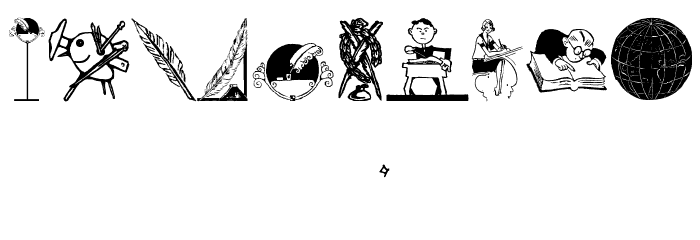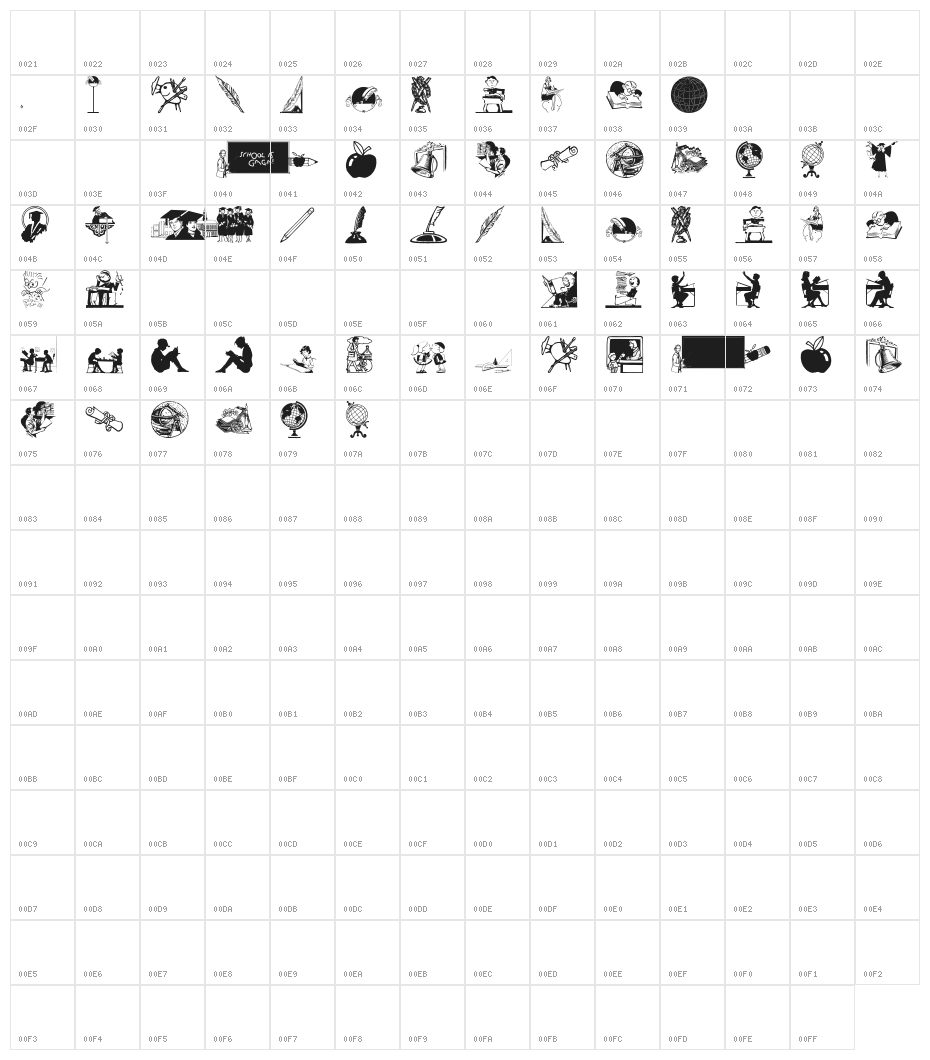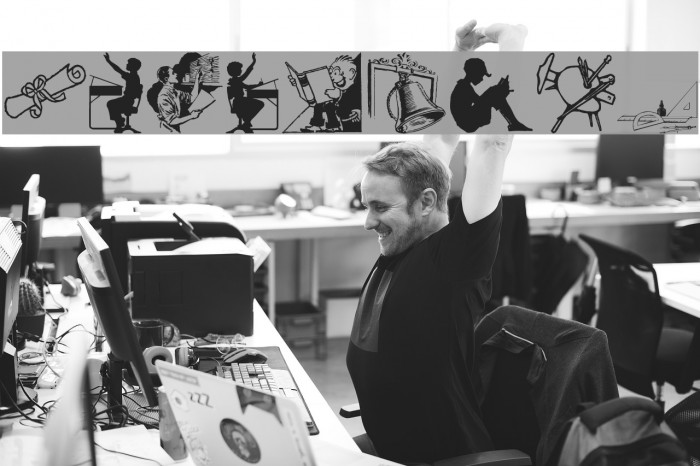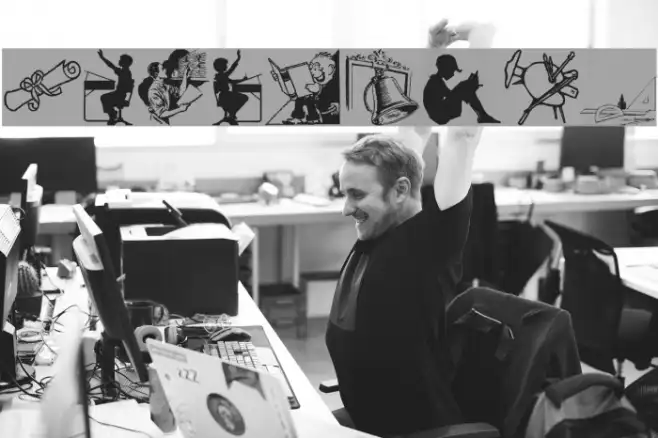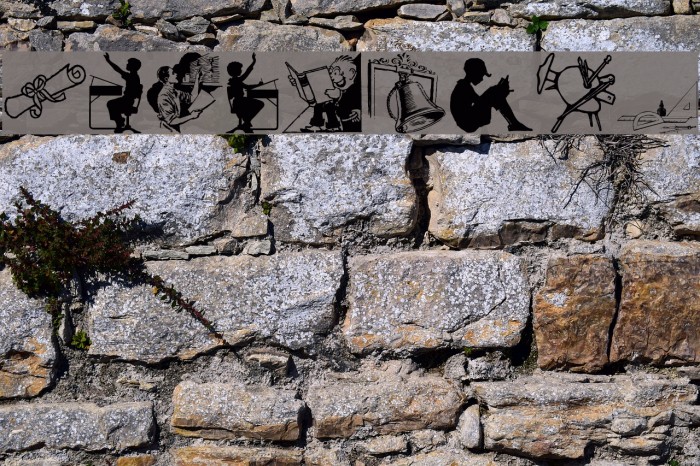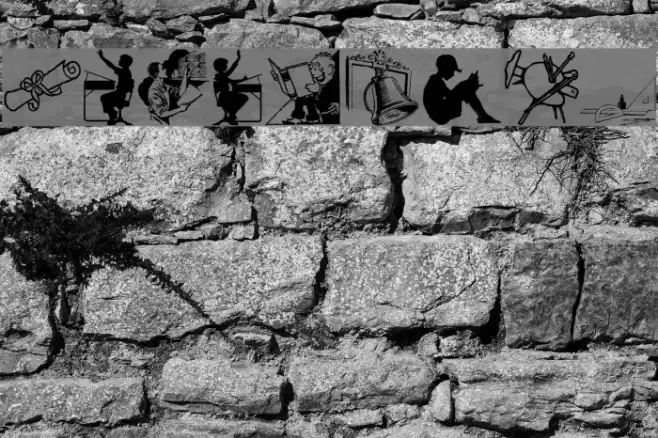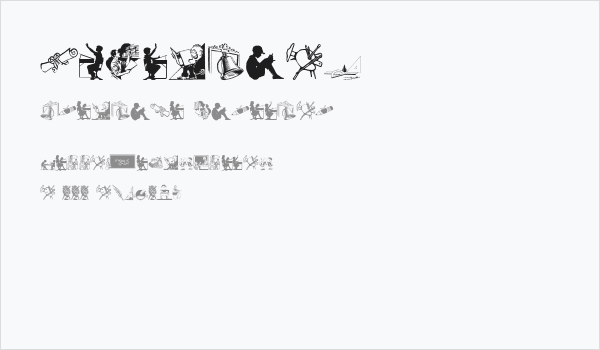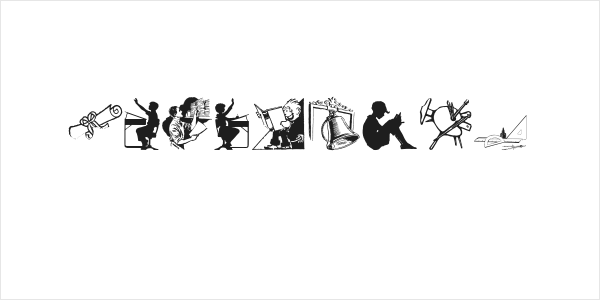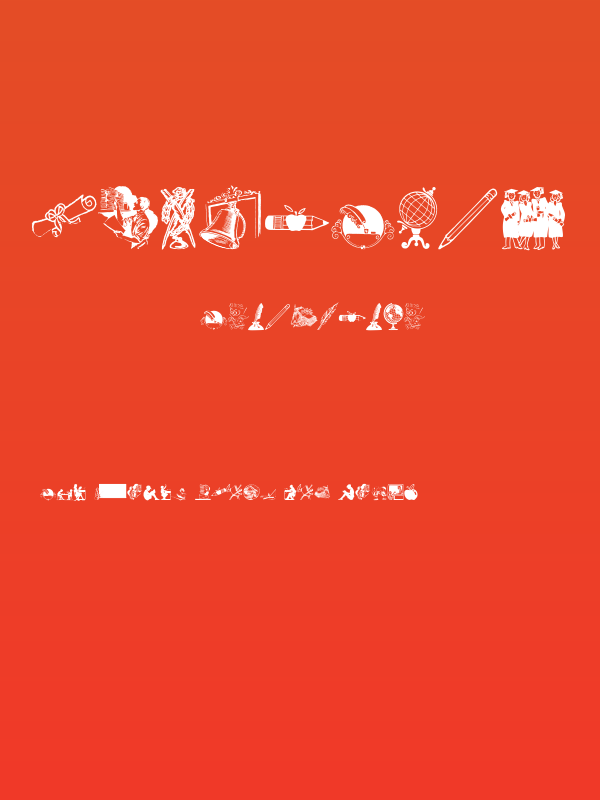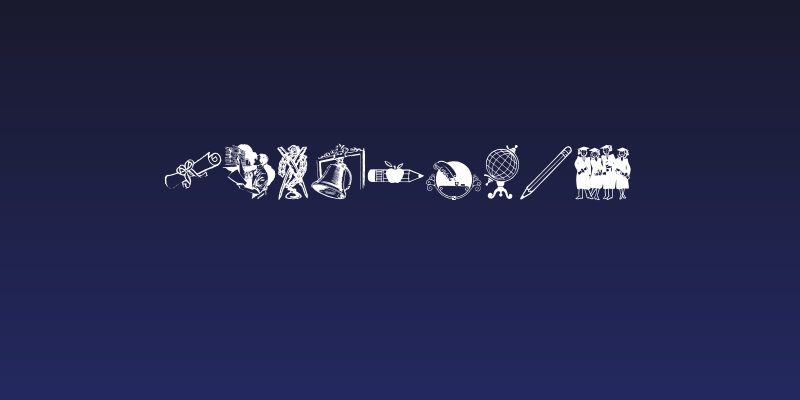
Education Font
Education Description
A decorative dingbat font featuring various education-themed illustrations such as pencils, apples, books, globes, students, teachers, and classroom scenes. Each character is represented by a unique, detailed black-and-white drawing related to schooling and learning environments.
| Overall Style | Decorative, Thematic |
| Use Case | Decorative elements, Themed graphics, Not suitable for body text |
| Proposed Projects | Educational posters, school event flyers, classroom decorations, children's activity sheets, themed scrapbooking. |